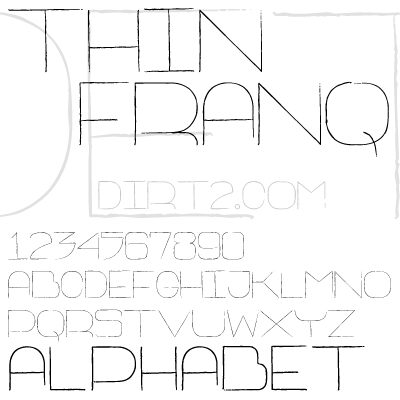
Thin Franq, created by Dirt2.com, is a free hairline display font with very tall, open, spare capitals and a deliberately handmade geometric structure. Its strokes are exceptionally fine, with slight wobbles and blunt joins that keep the severe angles from feeling mechanically precise.
It suits fashion branding and experimental music posters. On album covers, event graphics, and editorial openers, the skeletal letters can become a fine linear framework woven through illustrations or abstract patterns rather than sitting apart as ordinary text.
Thin Franq